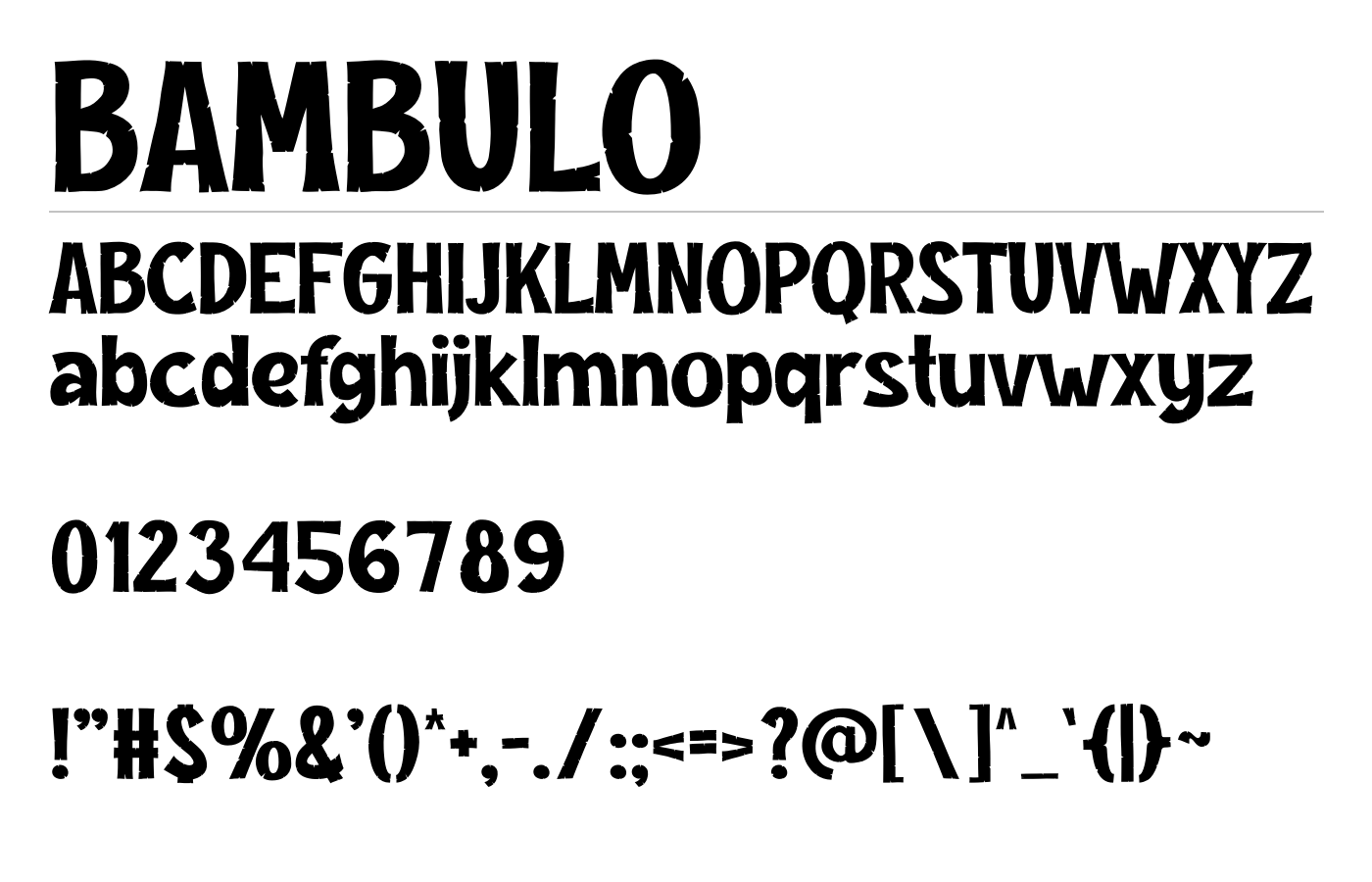
BAMBULO is a bold and playful sans serif font with a hand-crafted feel, featuring irregular edges and a slightly condensed width that adds character and energy. Its uneven stroke texture and strong presence make it perfect for fun, casual, and creative designs such as posters, branding, and headlines where a lively and informal tone is desired. This font works well to grab attention and convey a friendly, approachable vibe in various visual projects.
BAMBULO Font
About BAMBULO Font
| Font family | BAMBULO Font |
| Designer | TOKOPRESS TEAM |